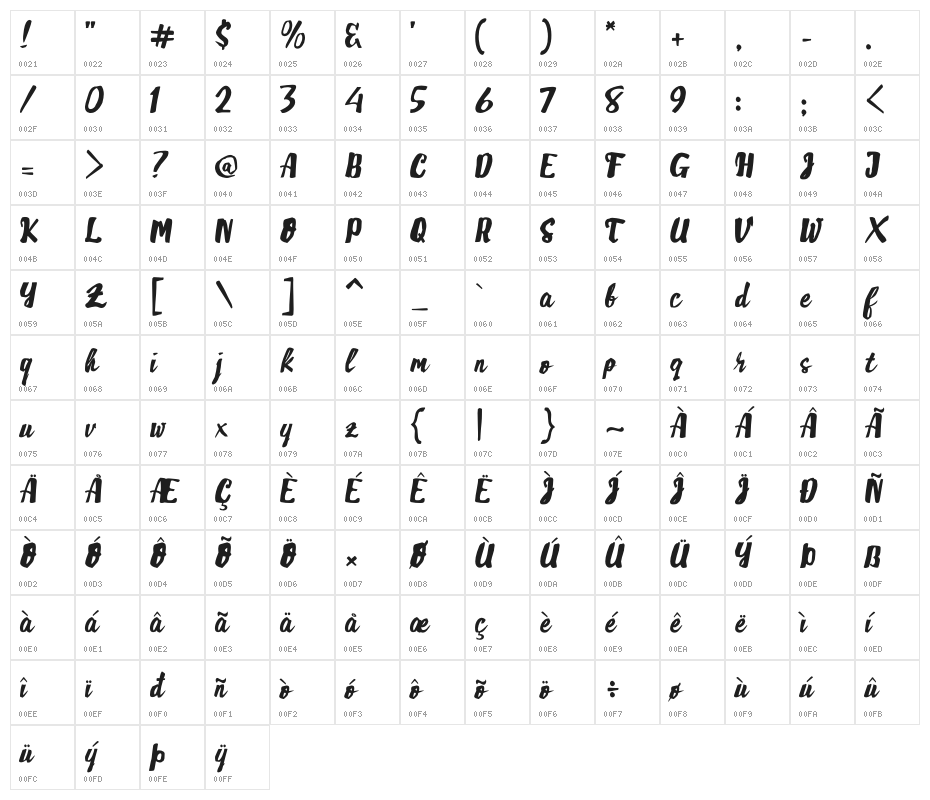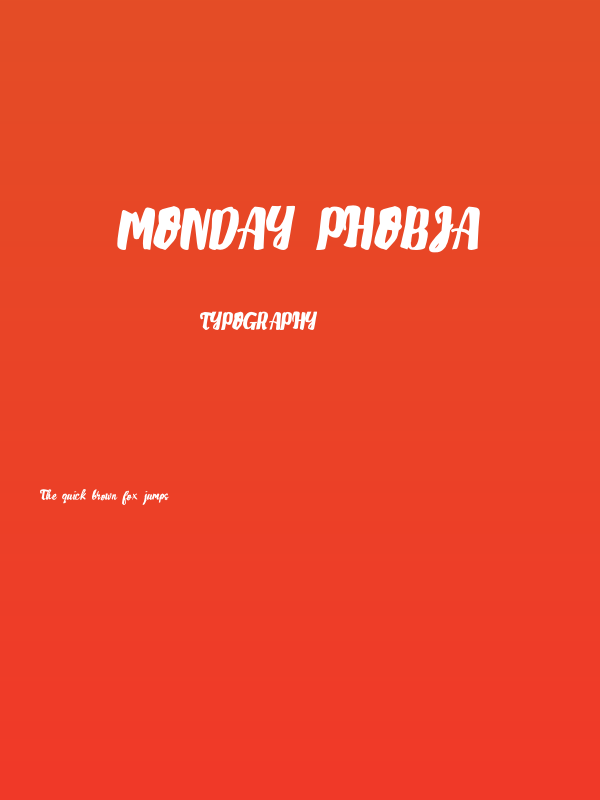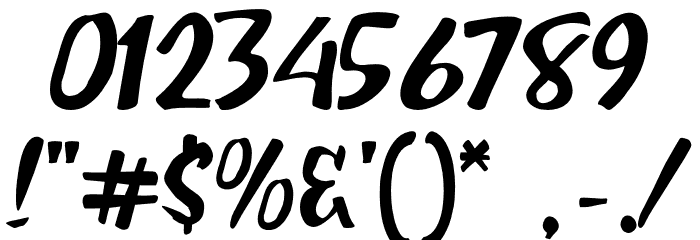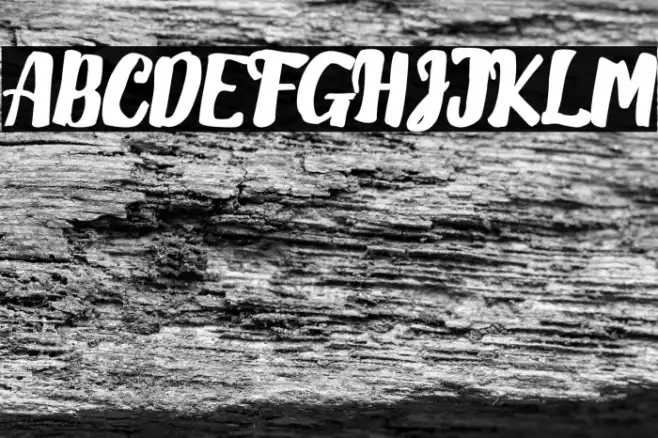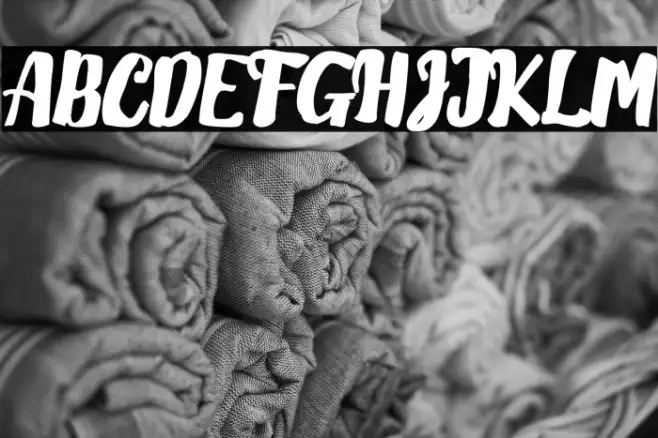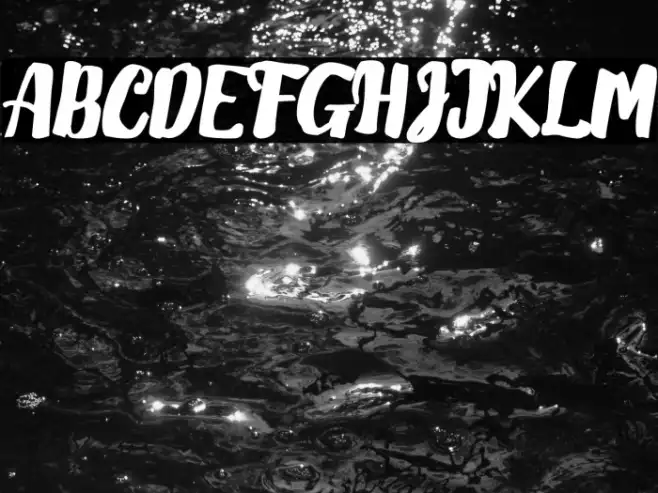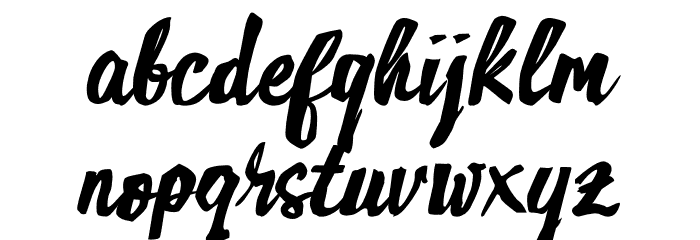
Monday Phobia Font
Monday Phobia Description
This font features a bold and expressive style with a handwritten appearance. The letters exhibit a dynamic flow, characterized by thick strokes and a slightly slanted orientation, giving it an energetic and lively feel. The uppercase letters are bold and prominent, while the lowercase letters maintain a consistent style with a playful touch. The numerals are clear and bold, matching the overall aesthetic of the font. Special characters are included, maintaining the same bold and expressive style. This font is suitable for projects that require a personal and dynamic touch.
MONDAY-PHOBIA UPPERCASE
MONDAY-PHOBIA LOWERCASE
MONDAY-PHOBIA OTHER CHARS